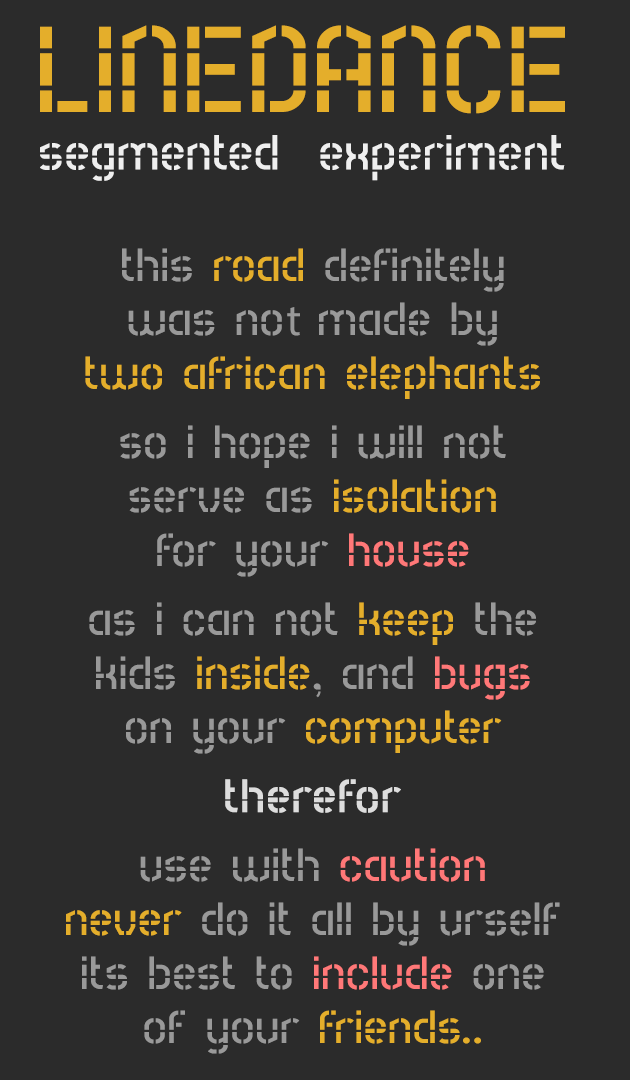
• LINEDANCE - Poorly segmented sans experimentation
═══════════════════════════════════
Not an LCD, segmented nonetheless.
I named it "Linedance" because the uppercase and lowercase letter incisions don't align. Hence the dumb reference to "dance", and as for "line", it refers to, well, y'all ain't THAT dumb, unlike that name I gave this.
So u probably get my point !  ..Or should I say "my line!" ?